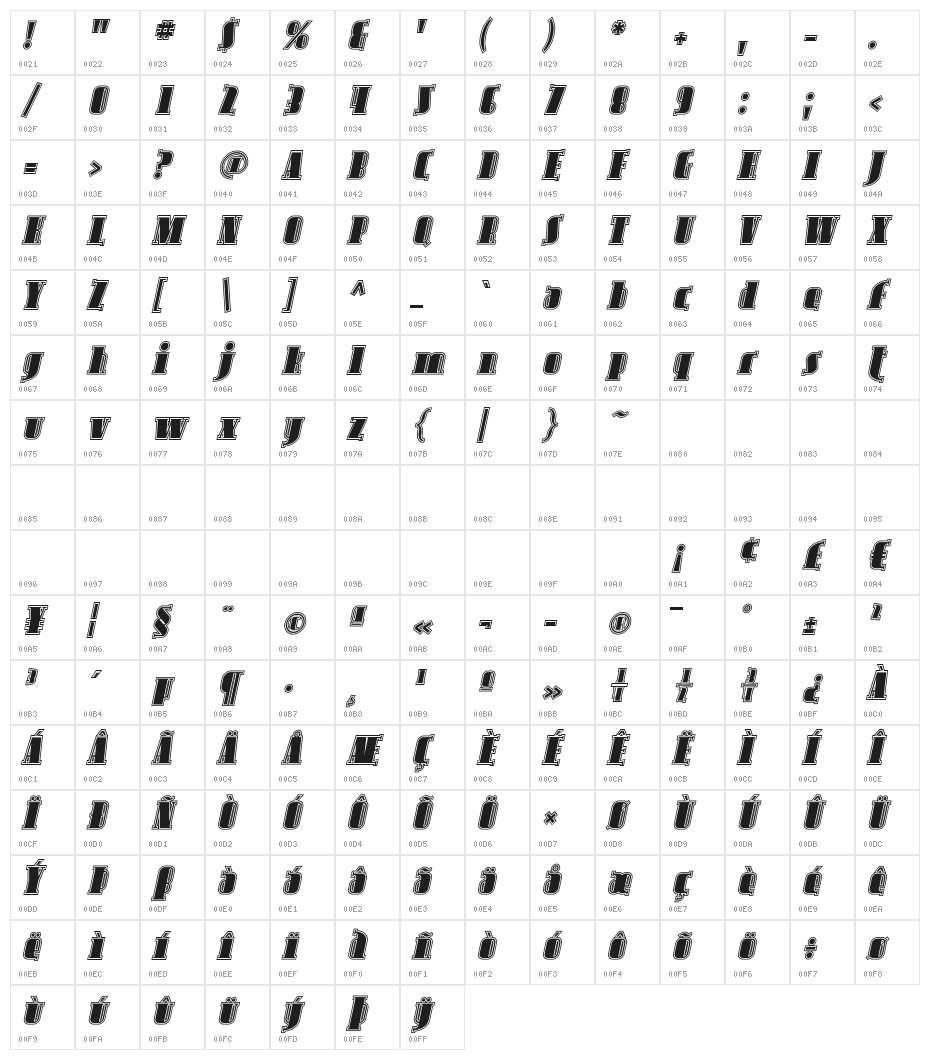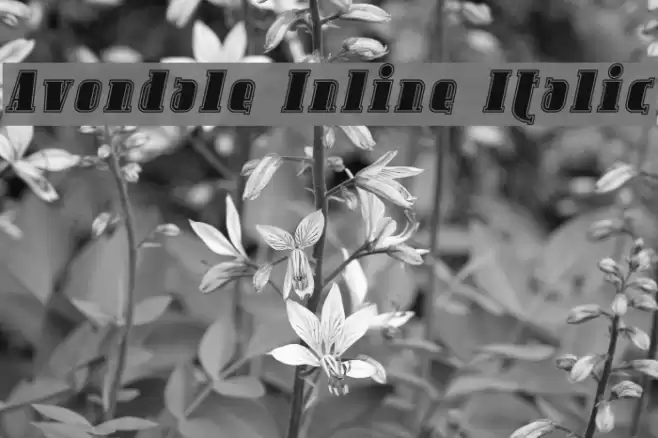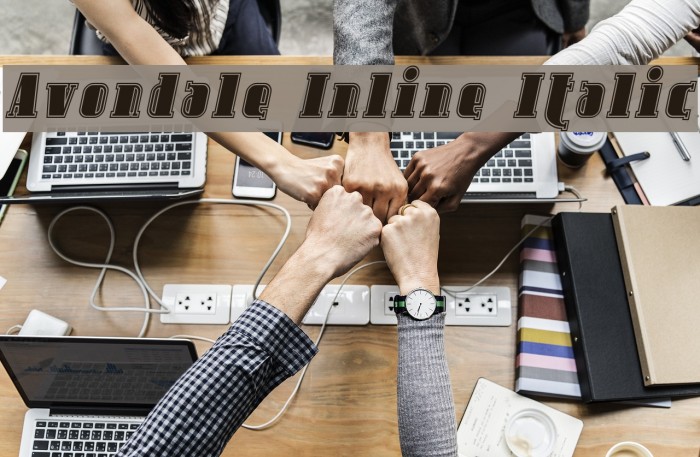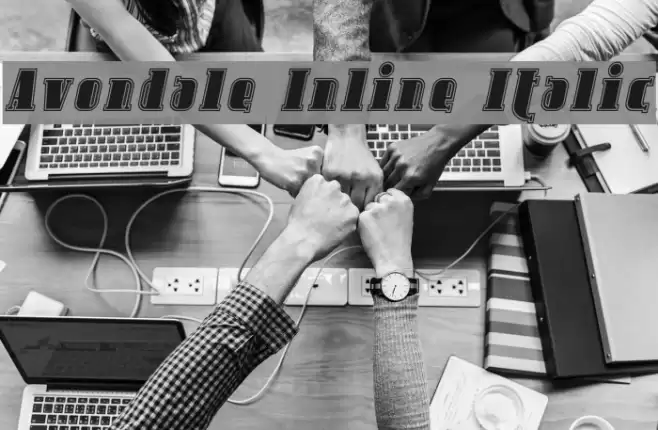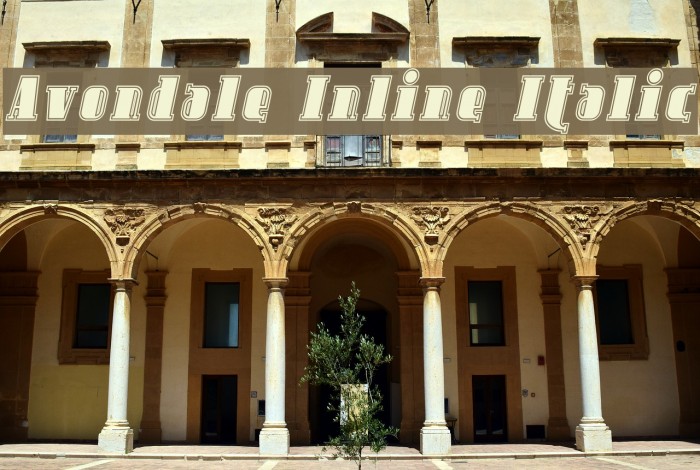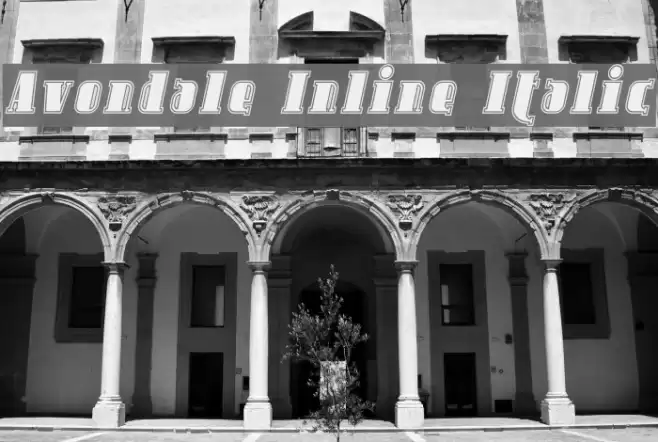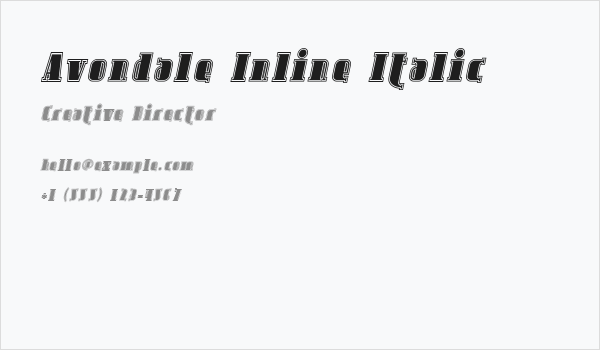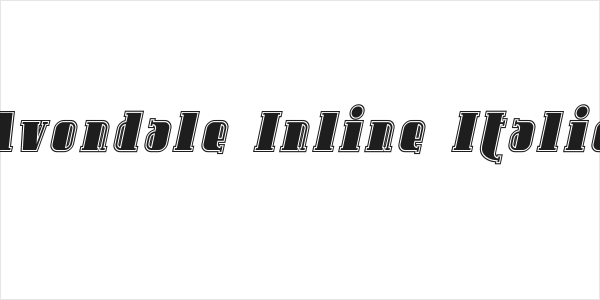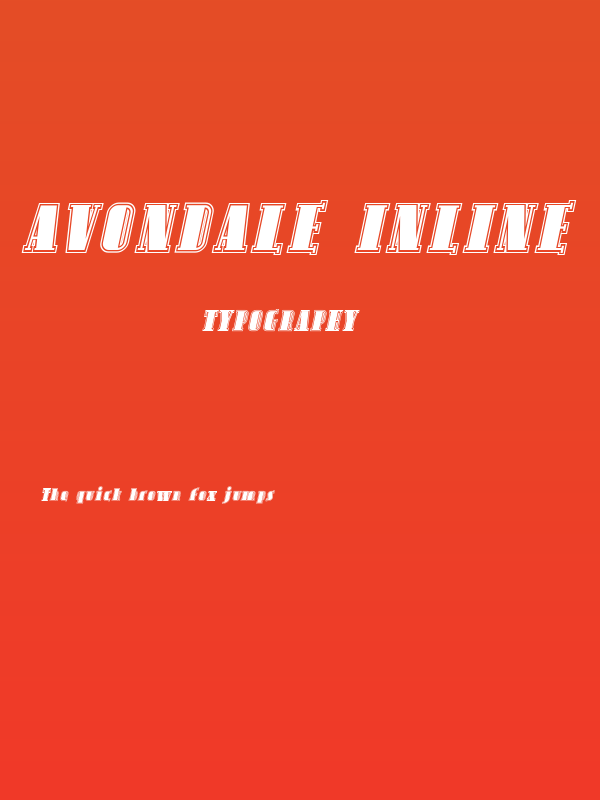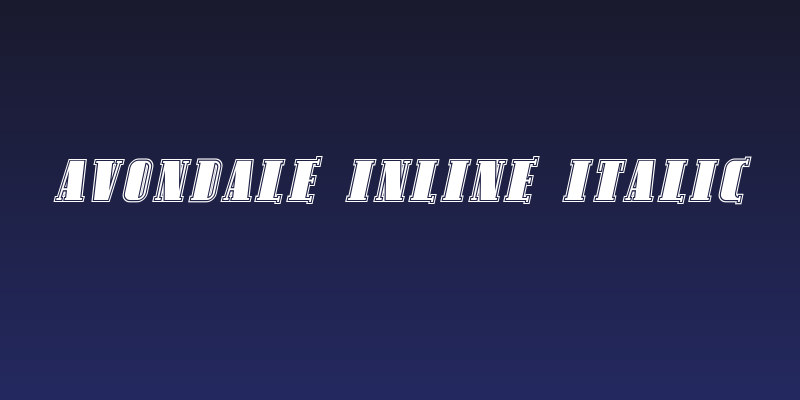
Avondale Inline Italic Font
Avondale Inline Italic Description
This font features a bold, inline style with a distinct italic slant, giving it a dynamic and energetic appearance. The uppercase and lowercase letters are characterized by strong vertical strokes and sharp serifs, while the inline detail adds a layer of complexity and depth. The numerals and special characters maintain the same bold and italicized style, ensuring consistency across all glyphs. The overall design is both decorative and functional, making it suitable for a variety of creative applications.
| Proposed Projects | Ideal for use in posters, logos, branding, and headlines where a bold and decorative typeface is needed. |